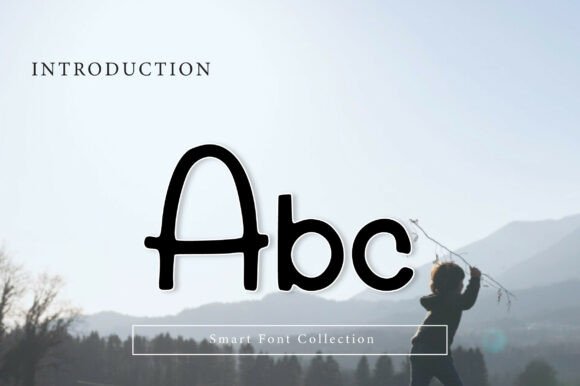
Elysia Script Font: Elevate Your Design with Modern, Casual Elegance
In the realm of typography, few fonts manage to strike a balance between modernity and elegance as effortlessly as the Elysia Script font. This beautiful typeface is a perfect blend of casual serifs and handwriting-like fluidity, making it an indispensable tool for designers and crafters looking to add a personal touch to their projects. Whether you’re aiming for a youthful vibe or a sophisticated feel, Elysia Script offers versatility that is hard to match.
The Essence of Elysia Script Font
Elysia Script font is the embodiment of modern, casual serif handwriting. Its clean, monolinear weight gives it an effortless and spontaneous feel, reminiscent of a quick note jotted down with a fine-point gel pen. This characteristic makes it exceptionally suitable for applications where a personal and approachable tone is desired. From photography watermarks to lifestyle blogs and “thank you” cards, Elysia Script brings a touch of elegance and sophistication.
Legibility and Aesthetic Appeal
One of the standout features of the Elysia Script font is its high legibility. Even at smaller sizes, it maintains a balanced, rhythmic flow that makes longer quotes easy on the eyes. This is particularly beneficial for designers working on projects that require substantial text, such as blog posts, social media content, or even printed materials like brochures and flyers.
The unpretentious style of Elysia Script is another factor contributing to its versatility. Depending on the color palette you choose, this typeface can convey a youthful and energetic vibe or a calm and sophisticated feel. This adaptability makes it an excellent choice for a wide range of design projects, from digital platforms to print materials.
Pairing and Design Applications
To maximize the impact of the Elysia Script font, pairing it with complementary typefaces can enhance its appeal. A light sans-serif font can create a contemporary, airy look that feels fresh and current. This combination works particularly well for designers aiming for a minimalist yet elegant aesthetic.
Elysia Script is not just a font; it’s a staple “smart font” for any modern creative’s toolkit. Its applications are vast, ranging from:
- Photography Watermarks: Add a professional yet personal touch to your photos.
- Lifestyle Blogs: Elevate your content with a font that feels both modern and approachable.
- “Thank You” Cards: Convey your gratitude with elegance and warmth.
- Social Media Graphics: Stand out with a distinctive and readable font.
- Branding and Packaging: Use Elysia Script to create a memorable brand identity.
Why Choose Elysia Script Font?
Choosing Elysia Script for your design projects comes with numerous benefits:
- Versatility: Suitable for a wide range of projects, from digital to print.
- Elegance: Adds a touch of sophistication and modernity.
- Legibility: Easy to read, even for longer texts.
- Adaptability: Can be paired with various typefaces and color palettes.
Elysia Script font stands out in the world of typography for its unique blend of modern casualness and elegance. Its clean lines, high legibility, and versatile nature make it an excellent choice for designers and crafters looking to elevate their projects. Whether you’re creating personal cards, professional documents, or digital content, Elysia Script offers the perfect combination of style and readability. Incorporate Elysia Script into your design toolkit and discover the difference it can make in your work.